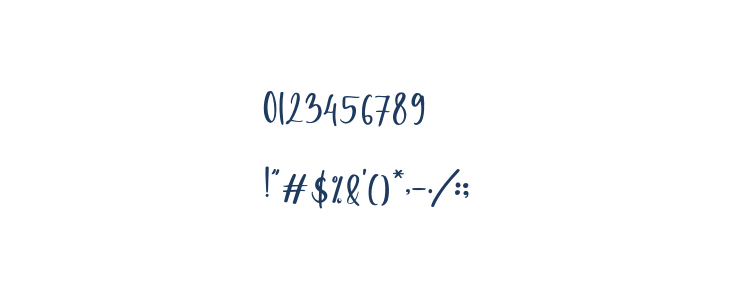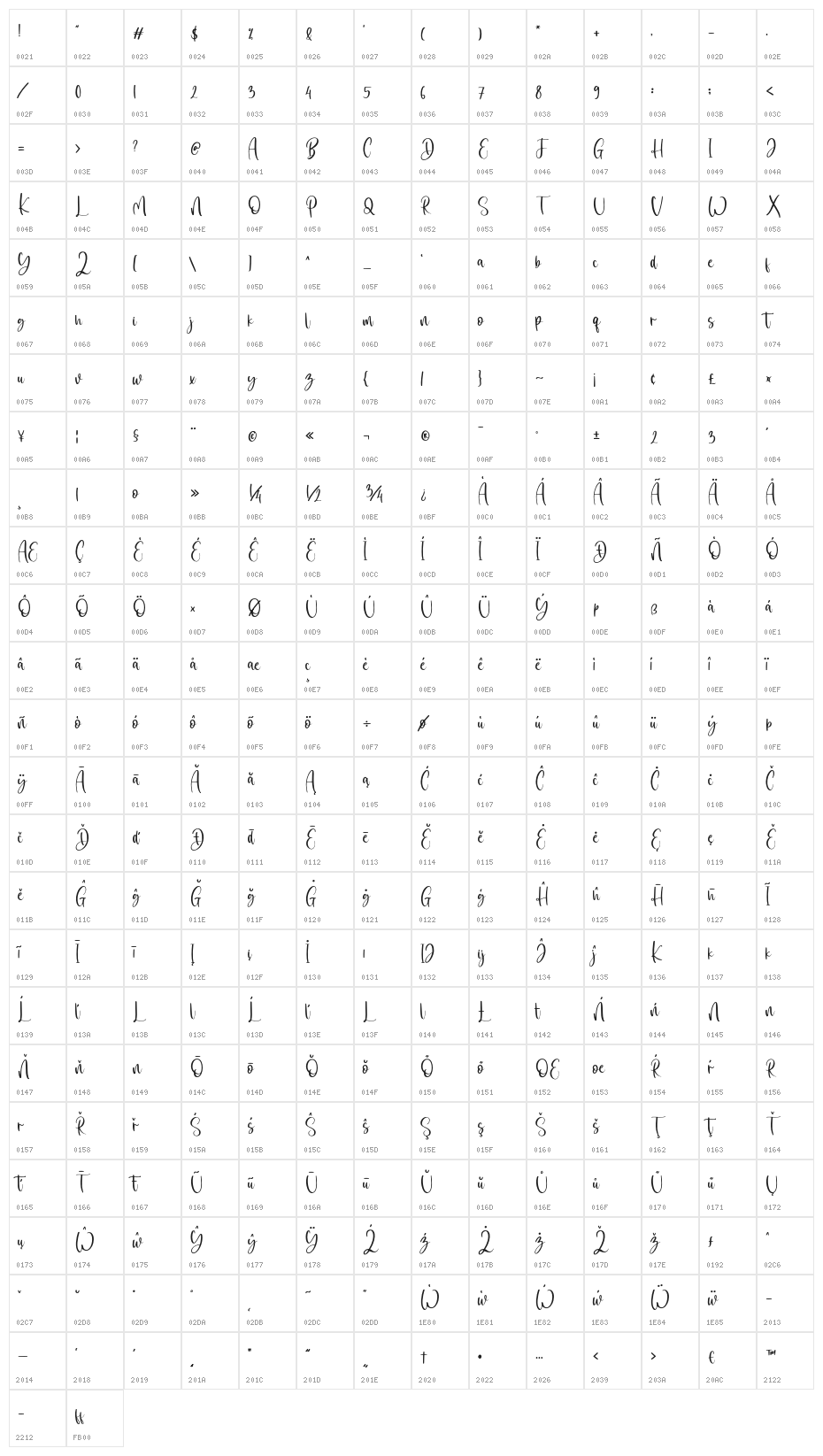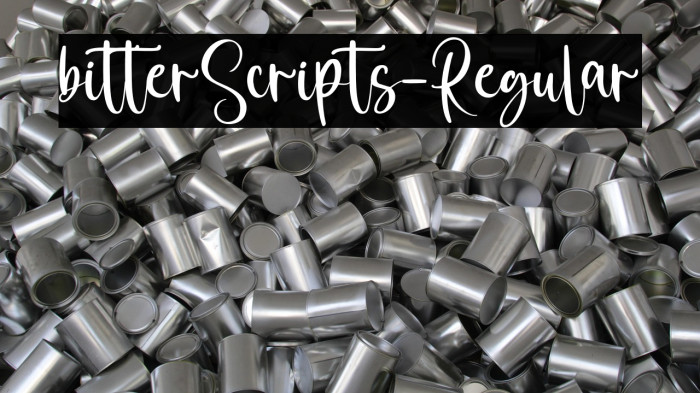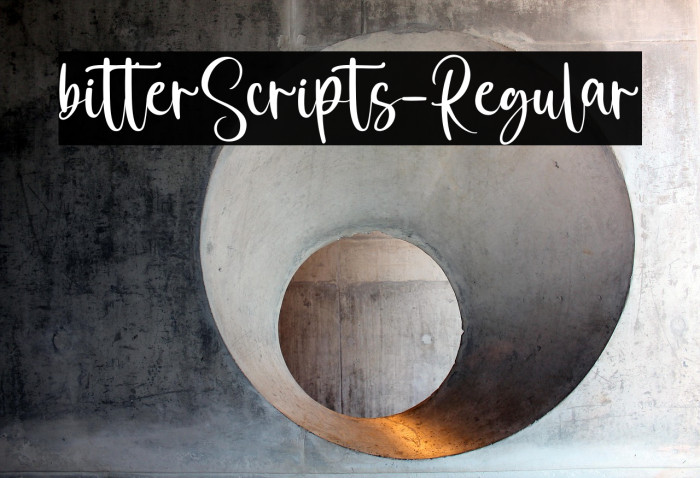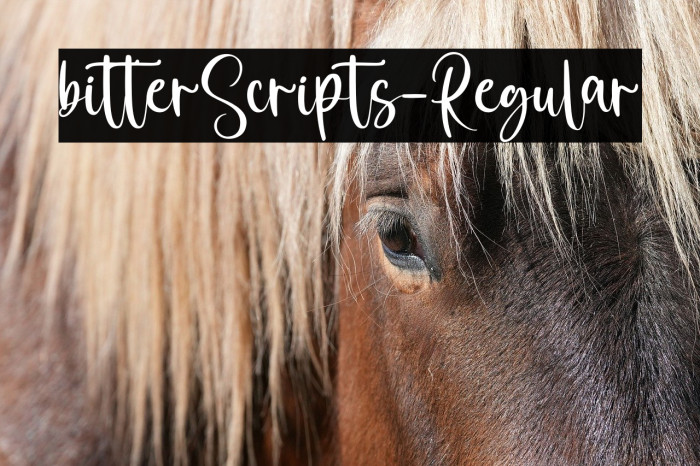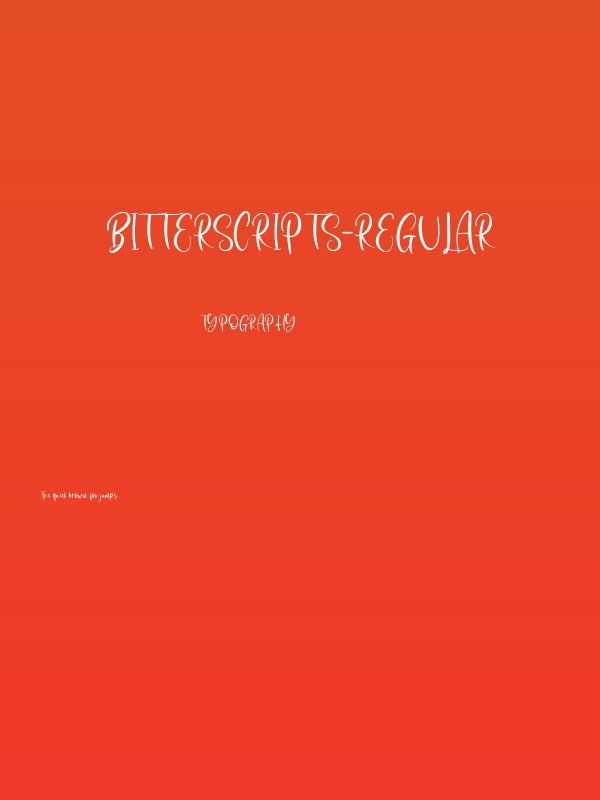
bitterScripts-Regular Font
bitterScripts-Regular Description
This font features a playful and elegant script style with a handwritten appearance. The letters are fluid and connected, showcasing a natural flow that mimics cursive handwriting. The uppercase letters are bold and slightly exaggerated, adding a touch of drama and flair. The lowercase letters maintain a consistent rhythm, with smooth curves and loops that enhance readability. The numbers and special characters are designed to match the overall aesthetic, ensuring a cohesive look across all text elements. This font exudes a sense of creativity and personal touch, making it ideal for projects that require a warm and inviting feel.